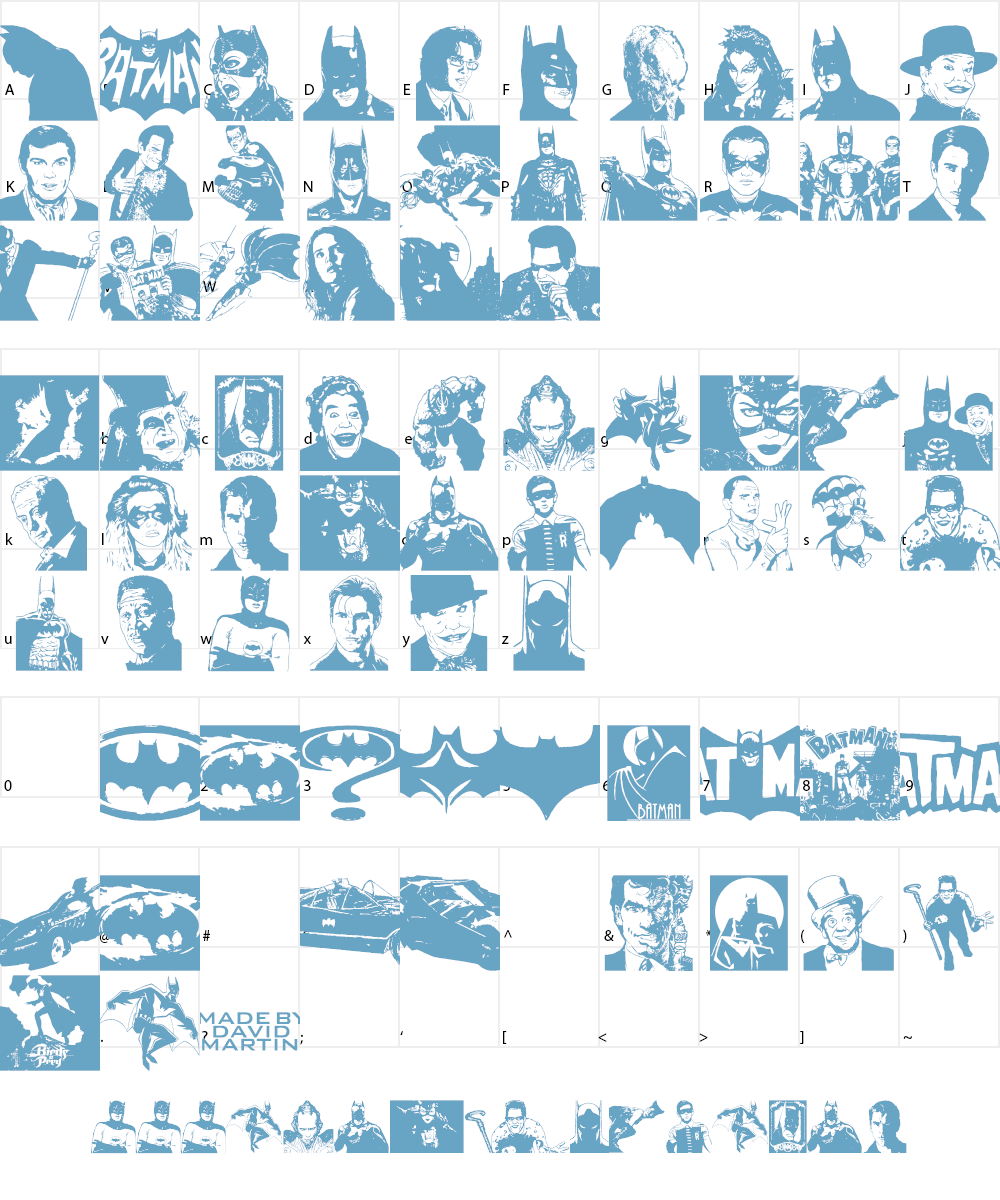
Batman font: Upper and lower cases, numbers and other keys feature pictures and logos from the Batman movies, tv series, the comics, cartoons. Holy ding-Bat-man!